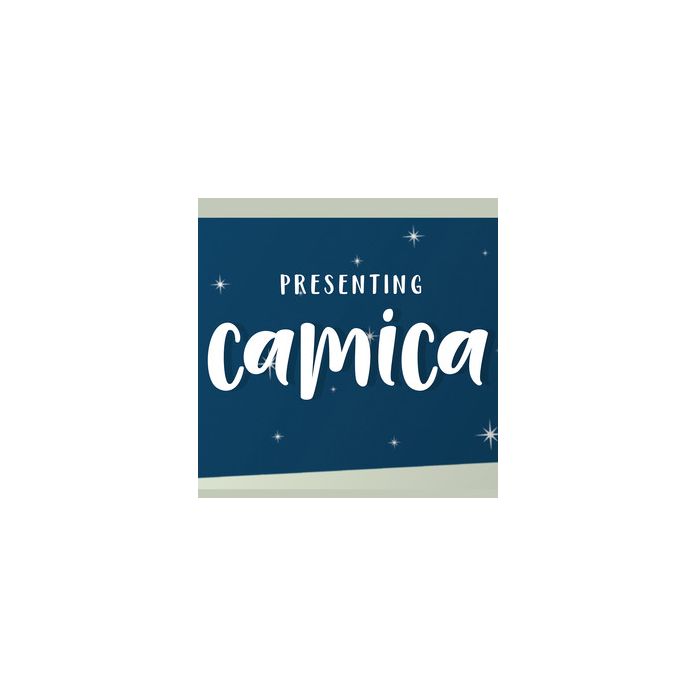
Camica font is perfect for your best party celebration, wedding invitations, parties, graduations, birthdays, gatherings, etc.
It contains a total of 162 characters including various punctuation, numbers, and multilingual support.